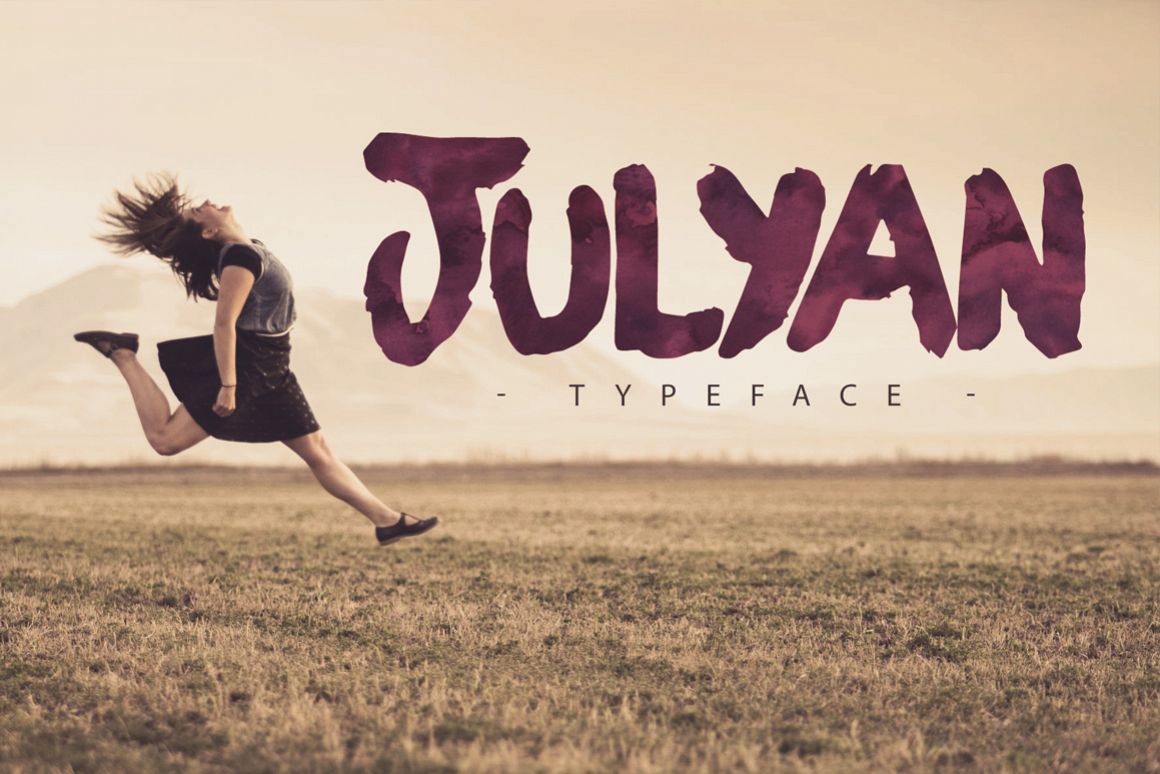
Julyan Typeface
Julyan-Regular
Julyan is a rugged handmade brush font that it perfect for logos and templates. 100 “handmade elements” are included to help on your harmonious effects your final design.
All uppercase. All letters. No punctuation. All numbers.